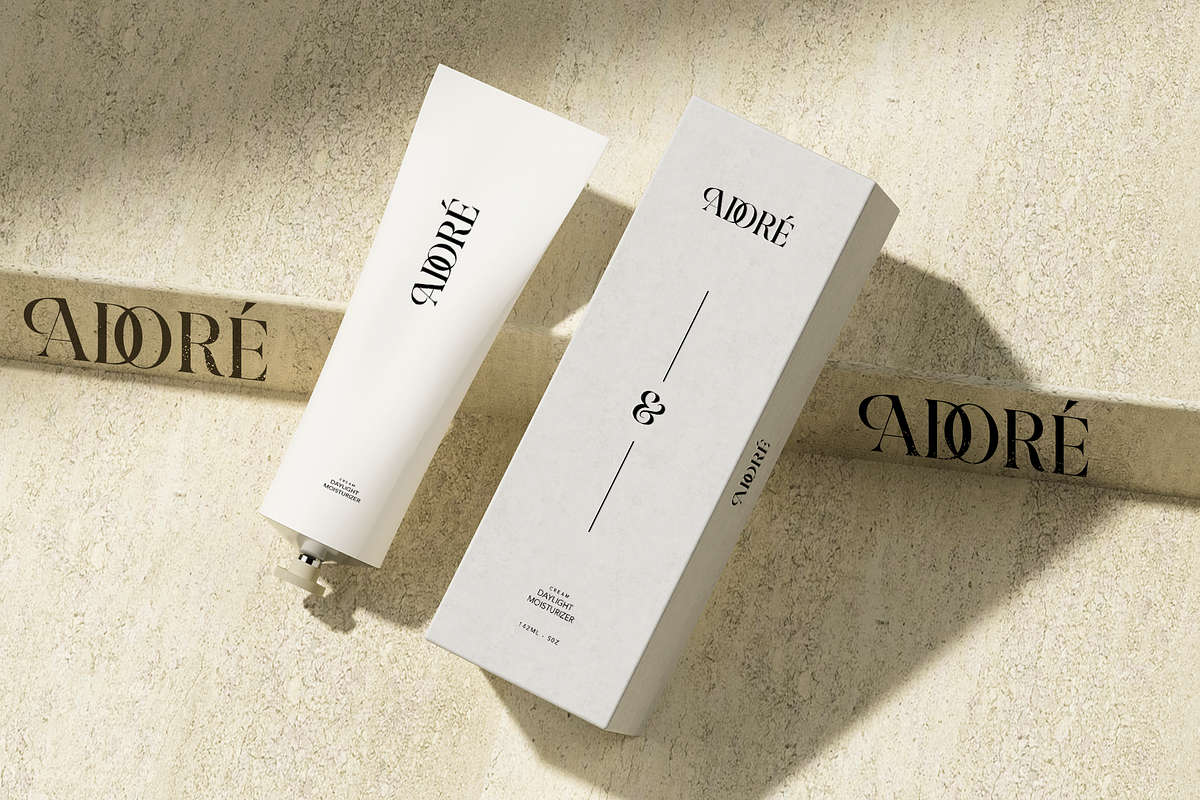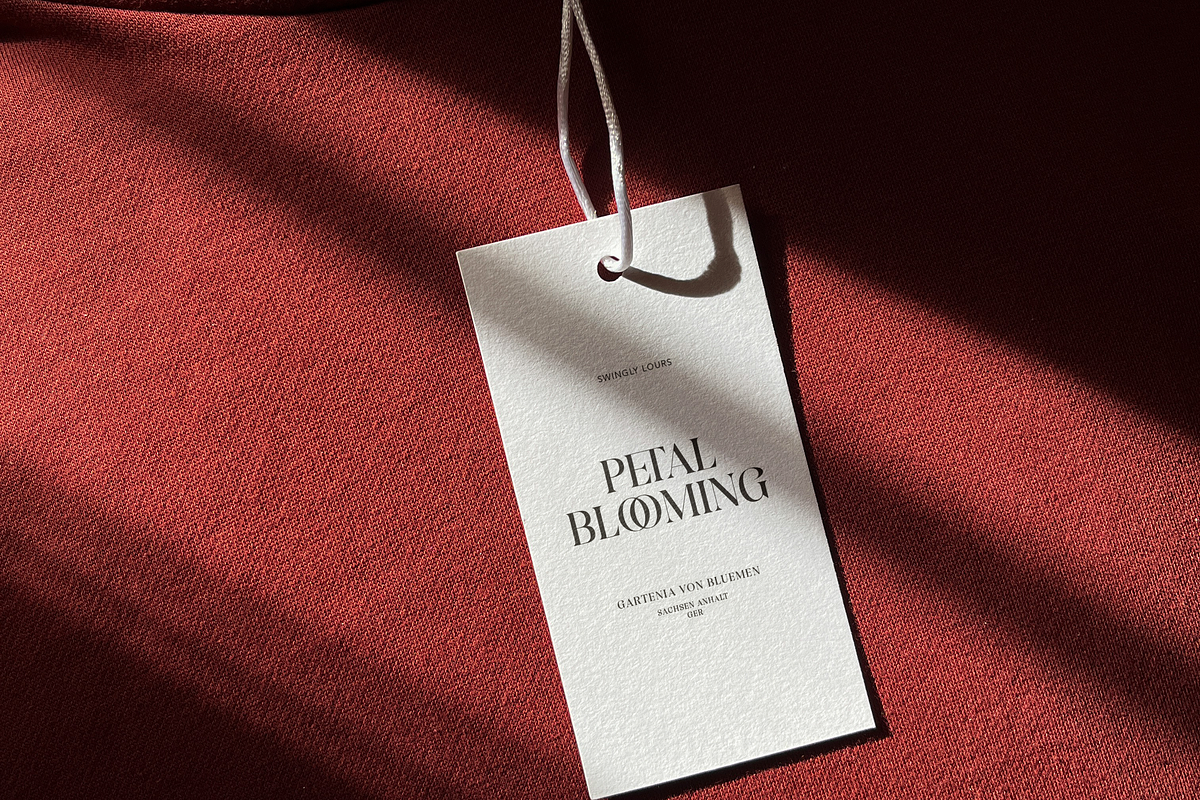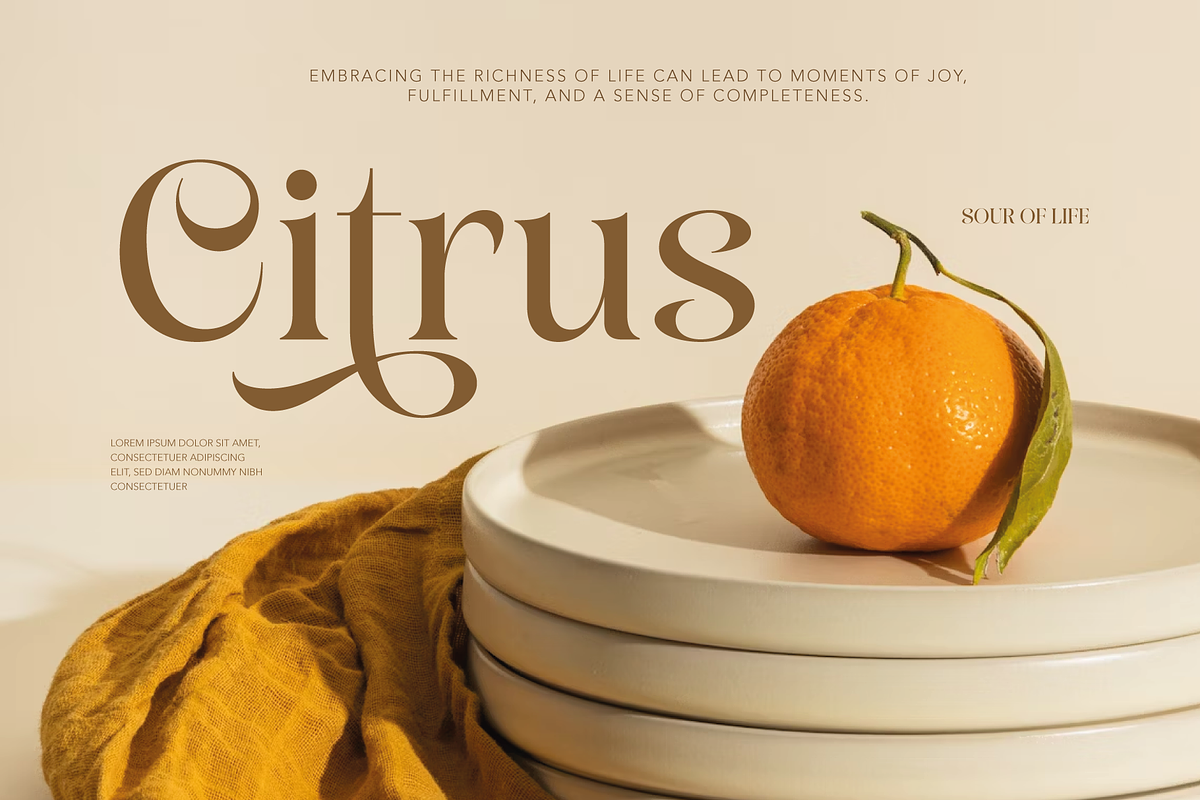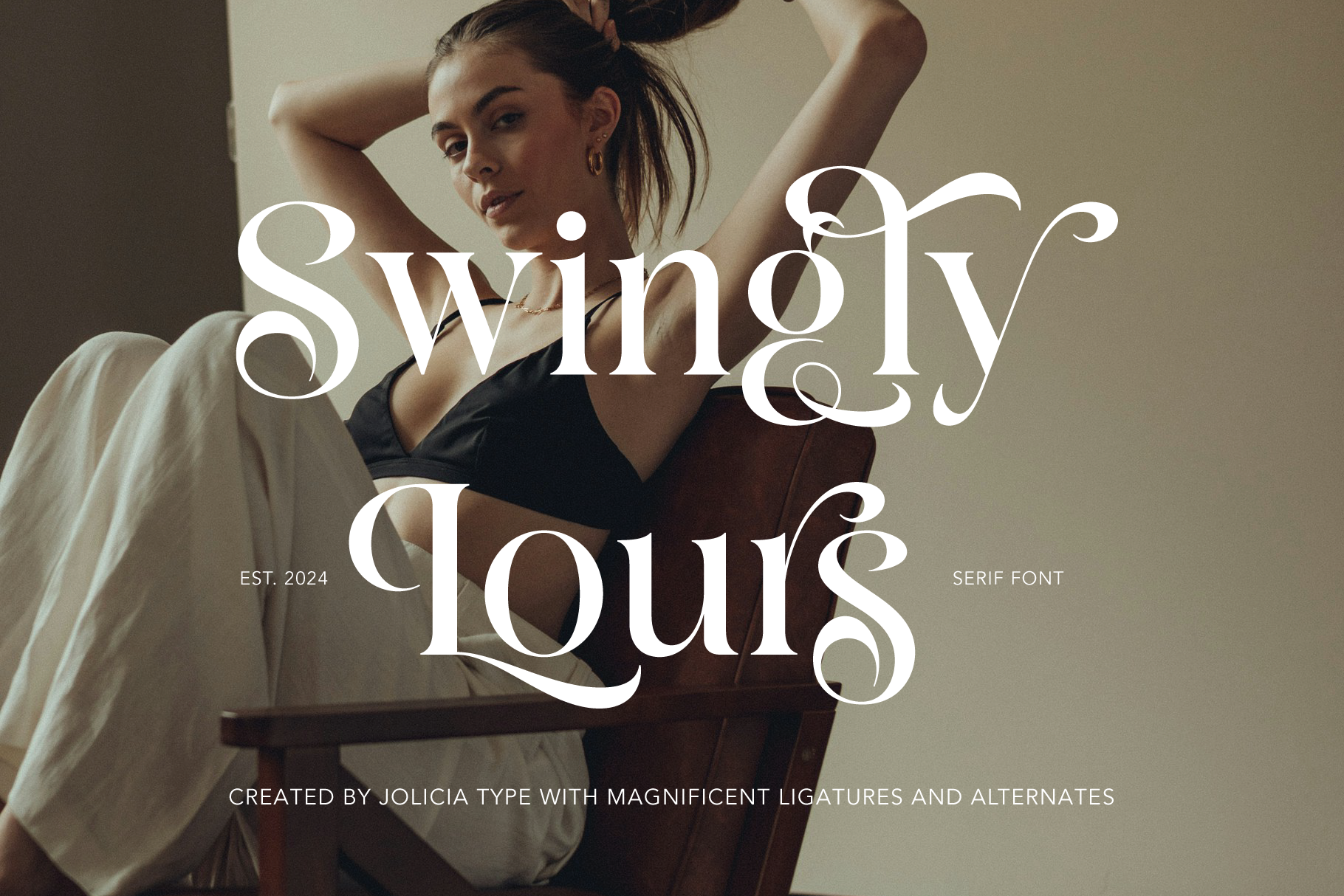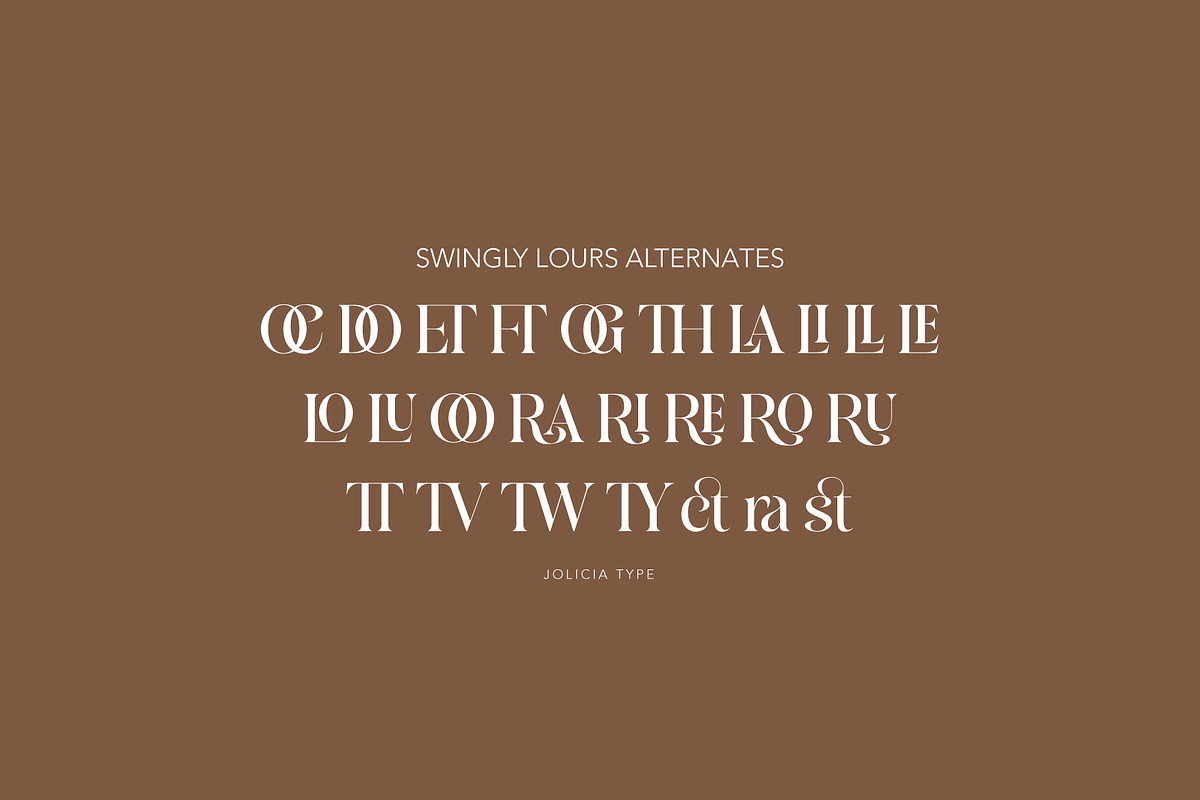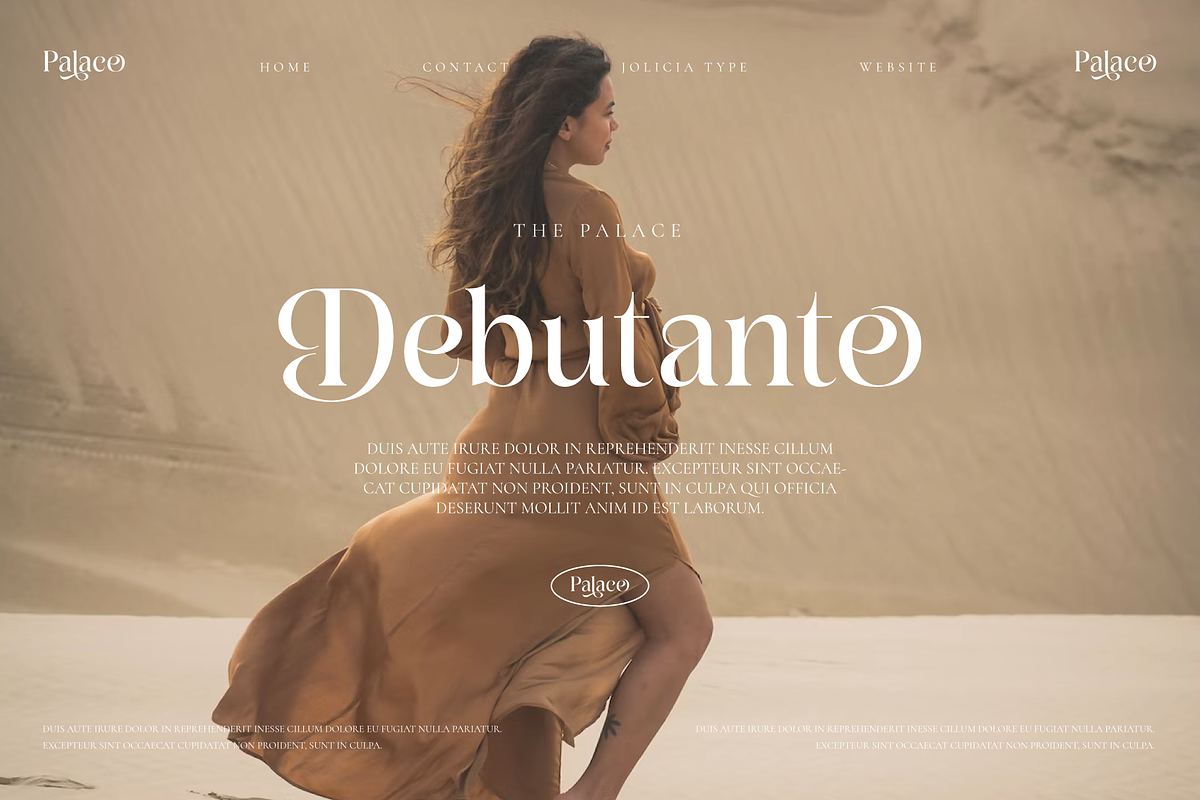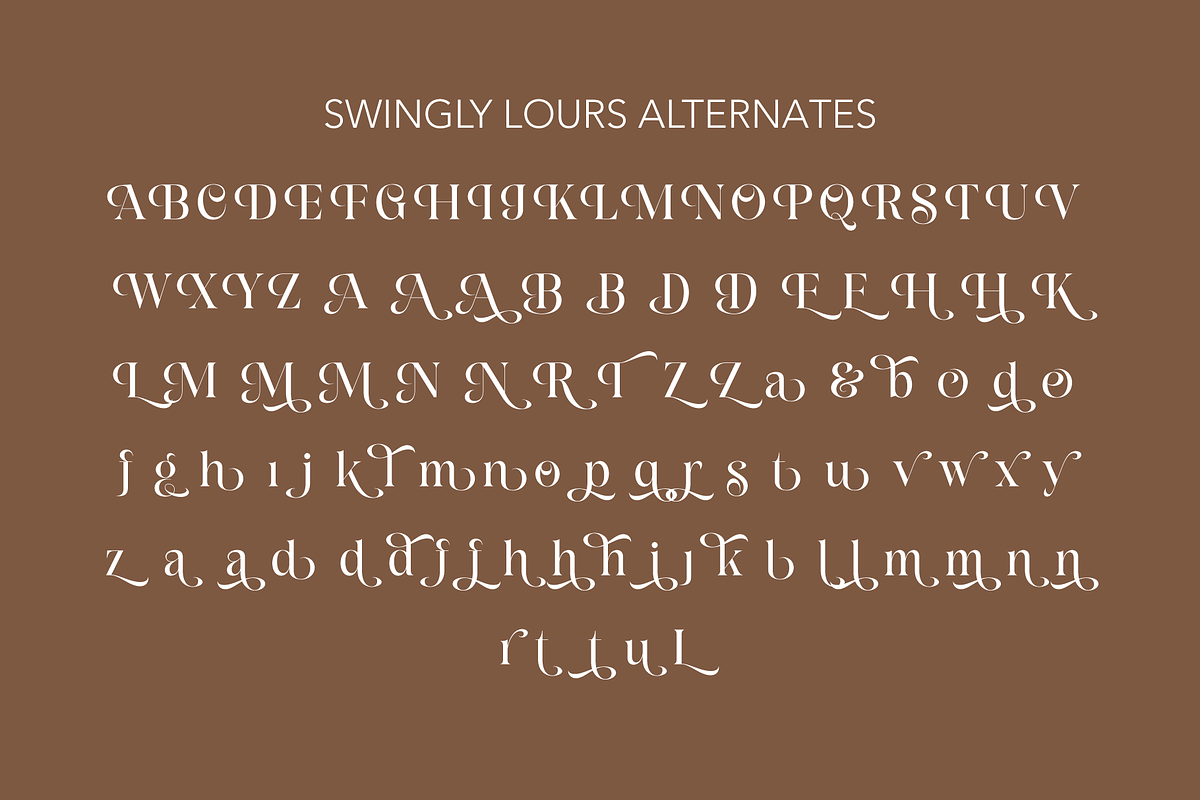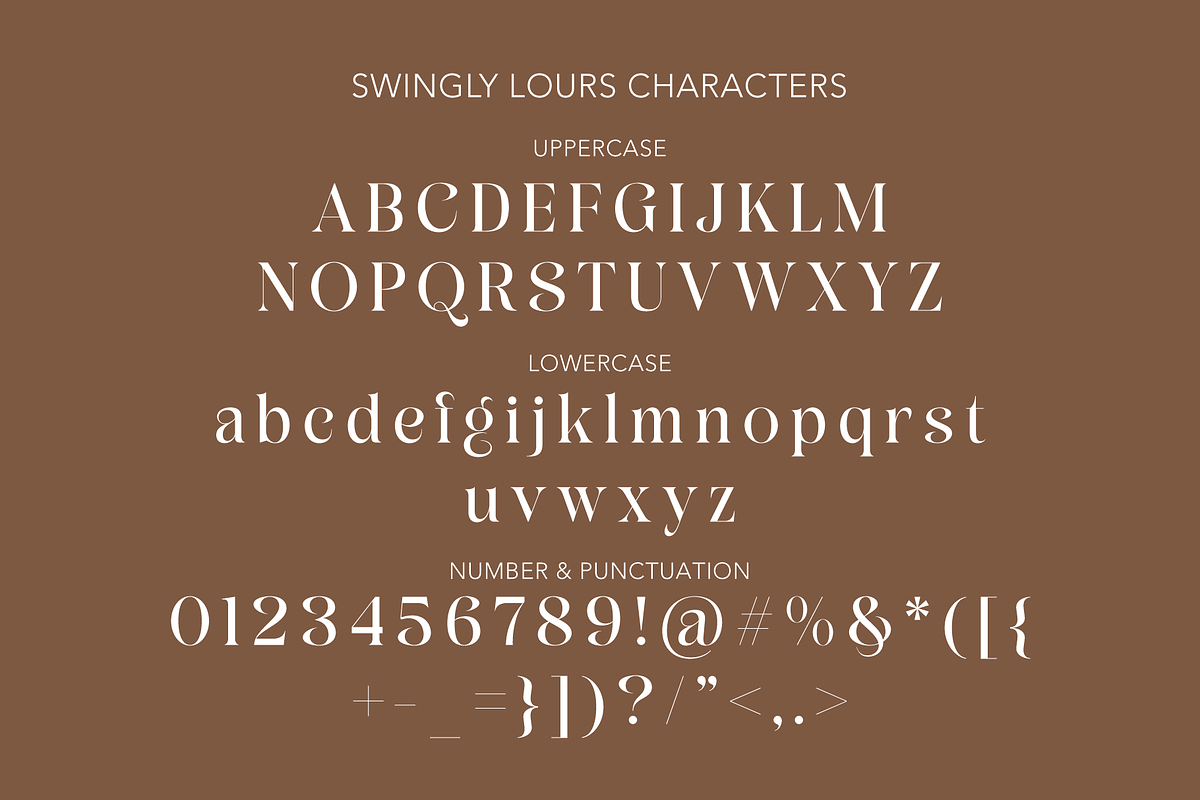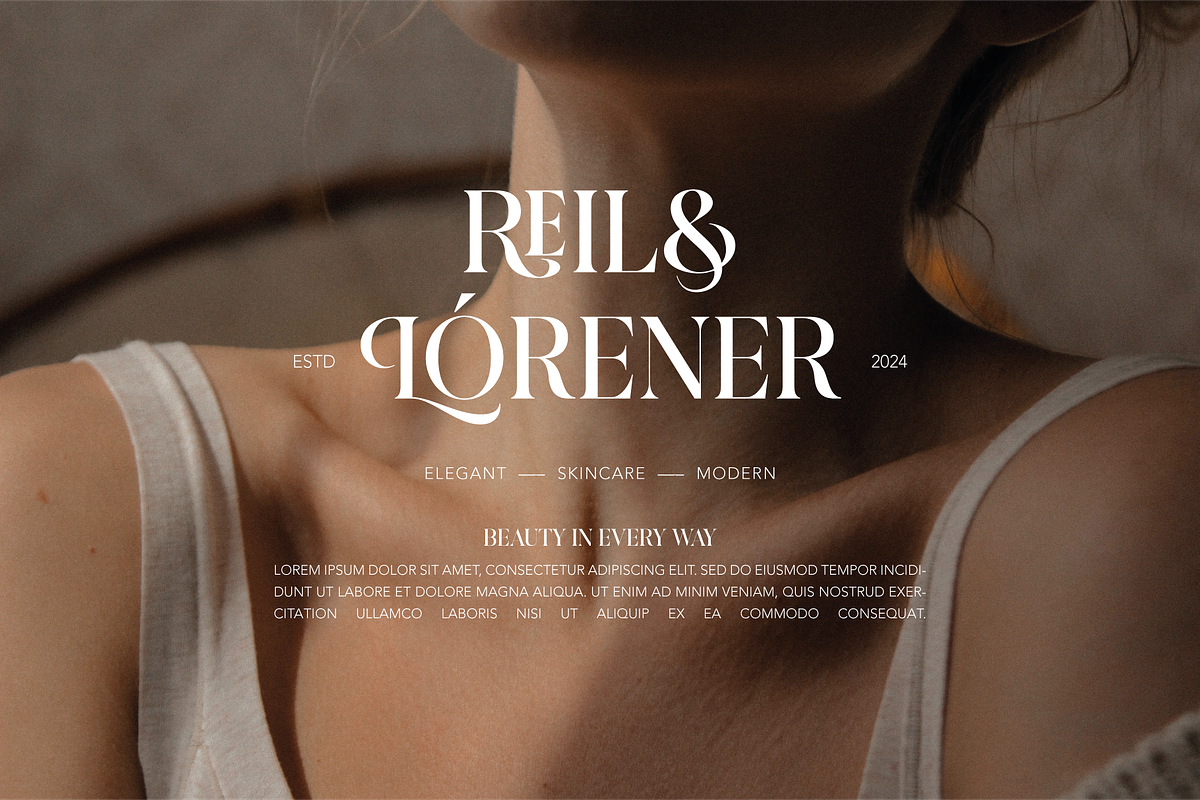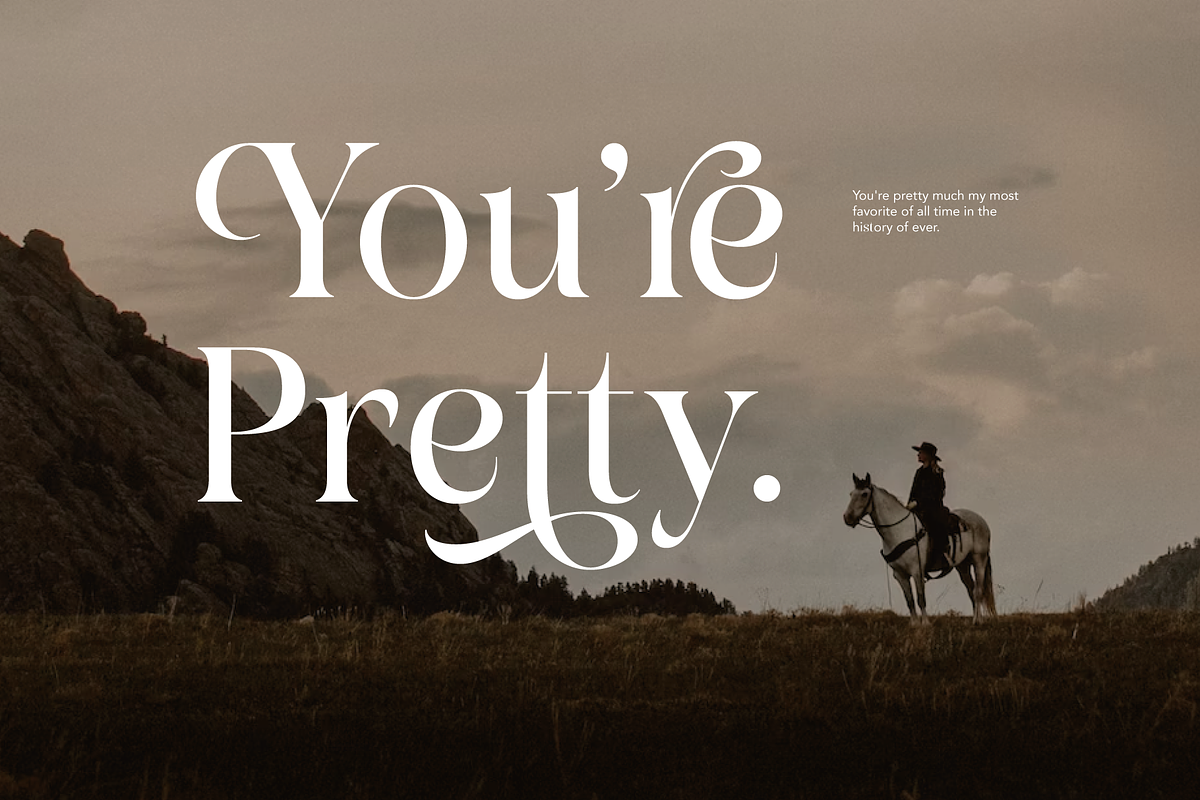
Swingly Lours | Magnificent Font
Meet Swingly Lours, the epitome of serif elegance enriched with magnificent ligatures and a plethora of alternates. This font transforms your typography into a visual symphony, striking the perfect balance between classic sophistication and contemporary creativity. Swingly Lours is not just a typeface, it's a versatile tool for crafting unique and captivating designs. Elevate your projects with the charm of this serif font, where every detail tells a story of timeless sophistication and customizable creativity.